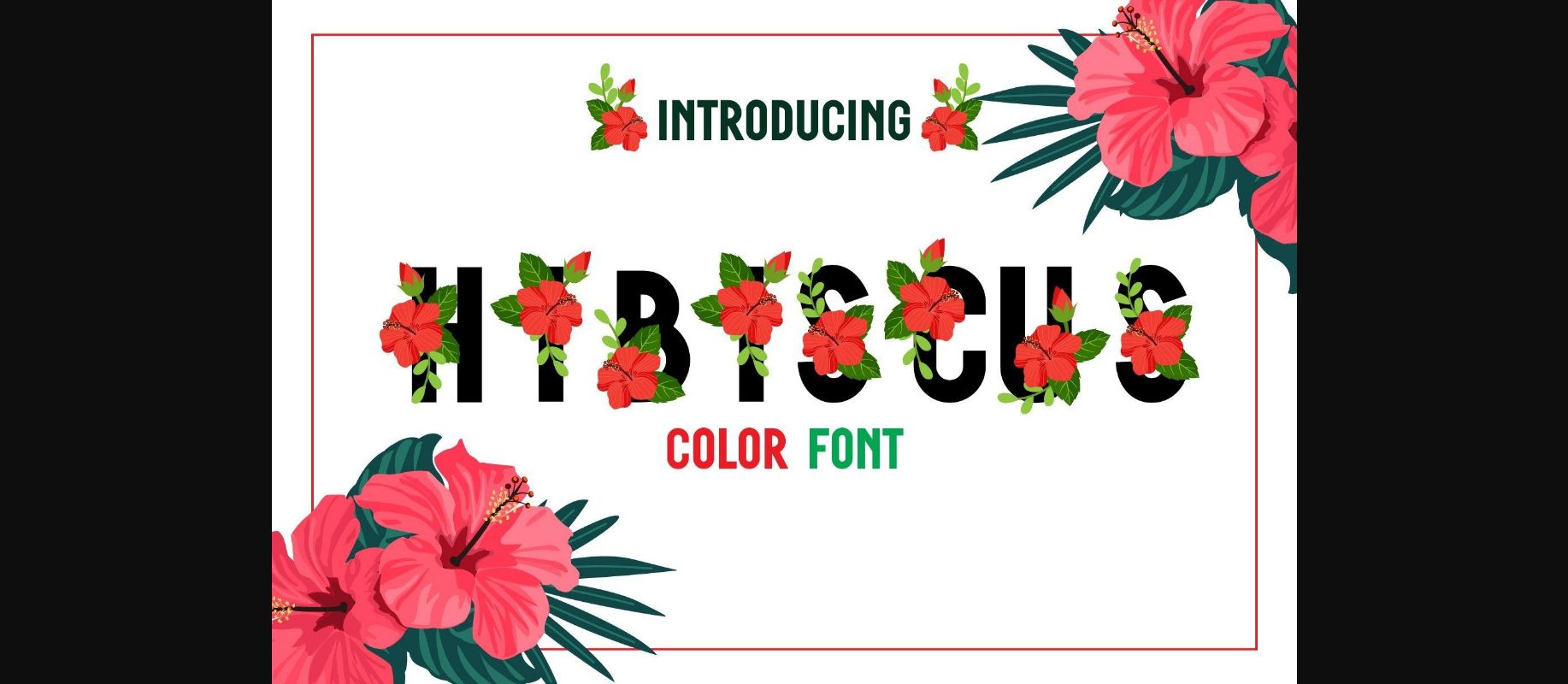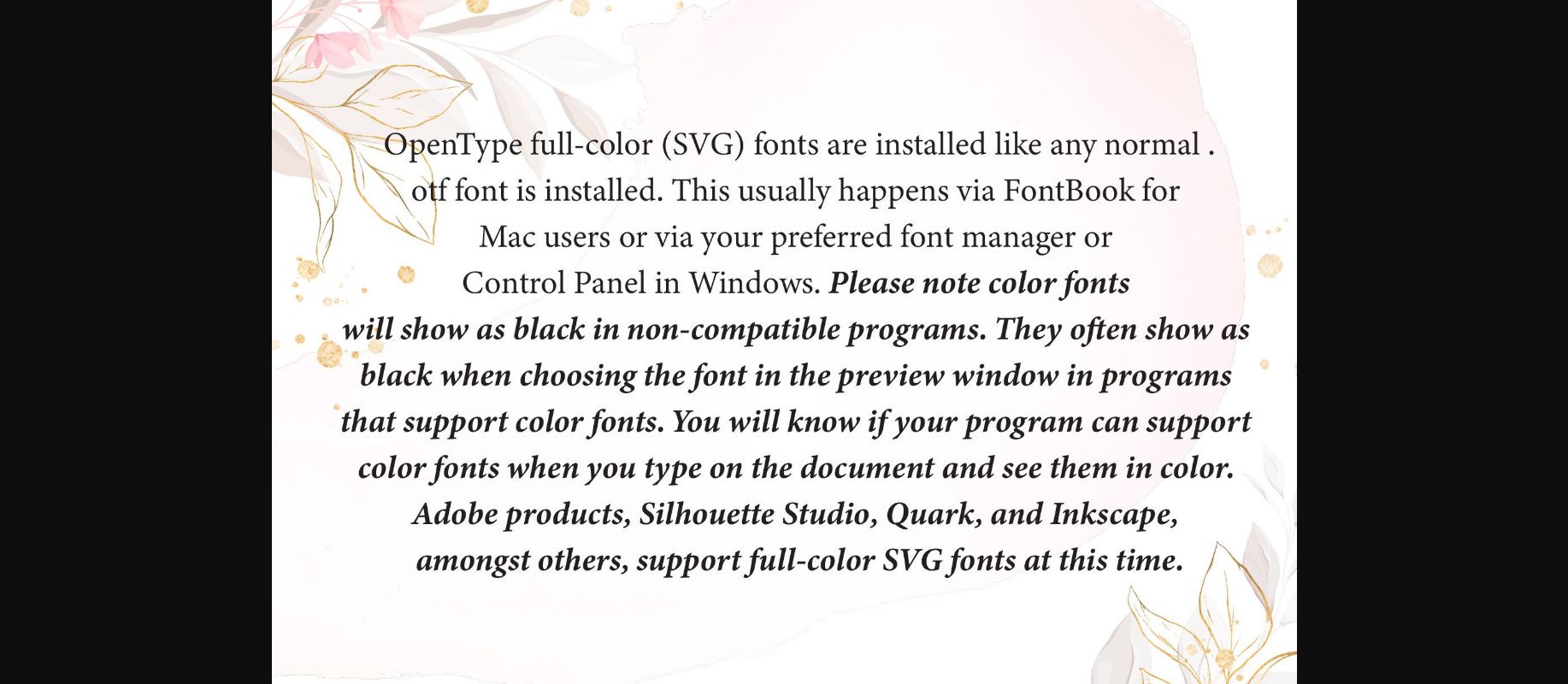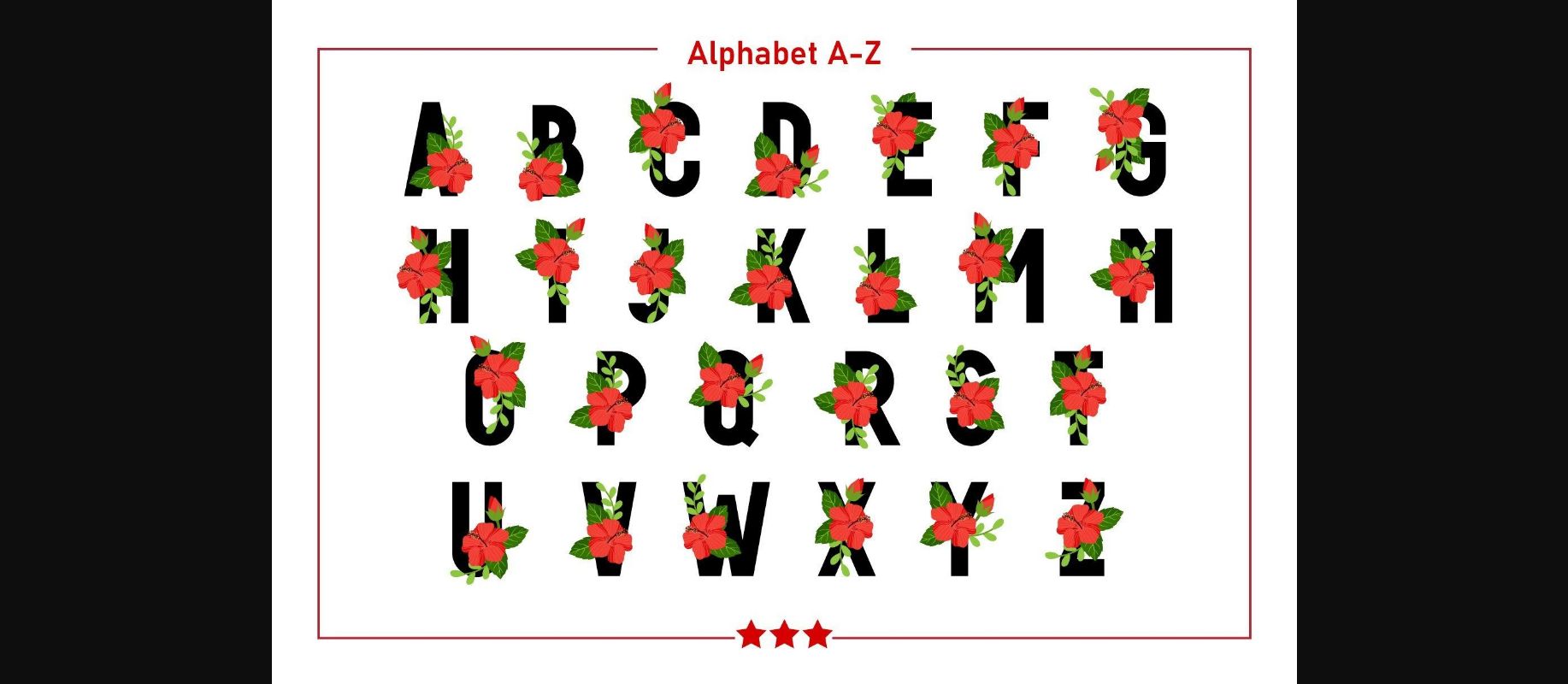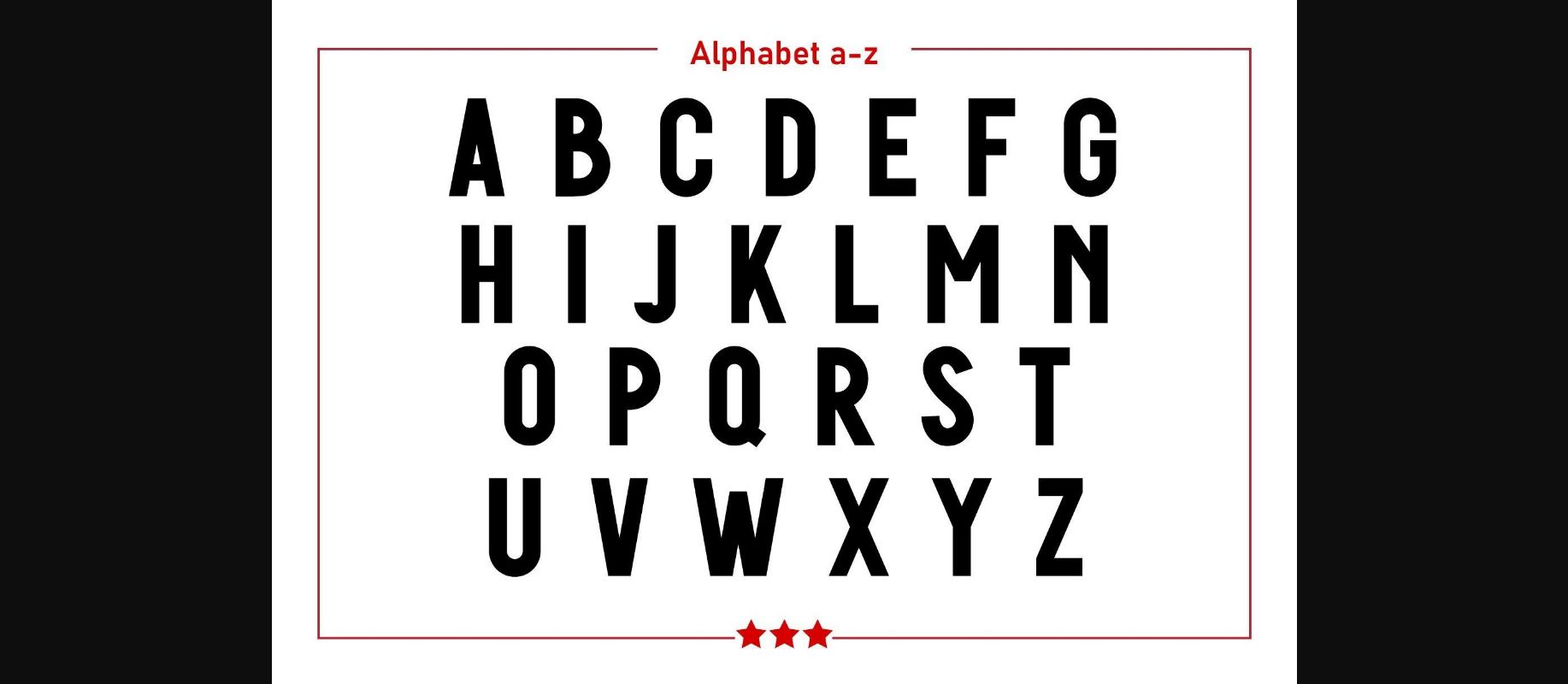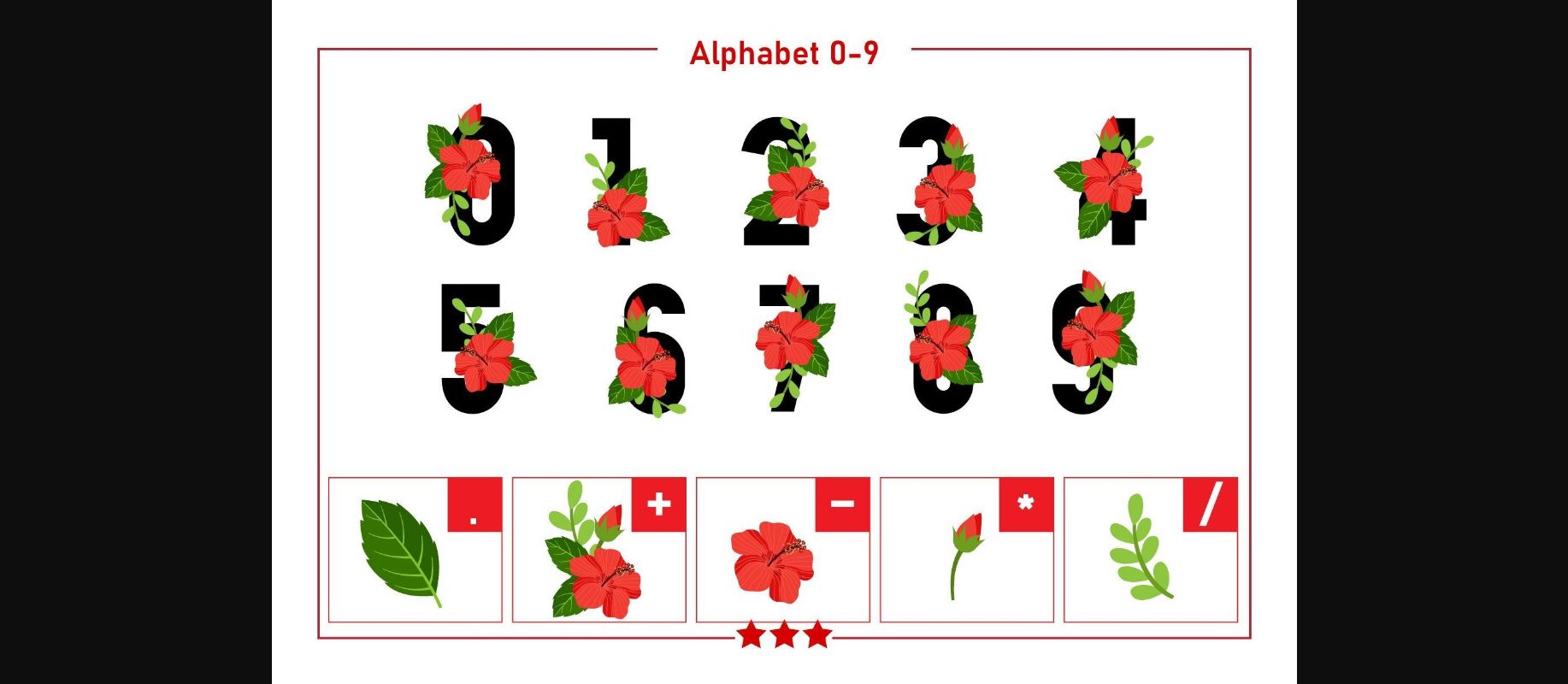
About Hibiscus Font
Hibiscus is a specially designed decorative font that feels like summer. Fall in love with its authenticity and use it to create gorgeous invitations, beautiful stationary art, eye-catching social media posts, and cute greeting cards. Add this beautiful font to each of your creative ideas, and notice how it makes them stand out.